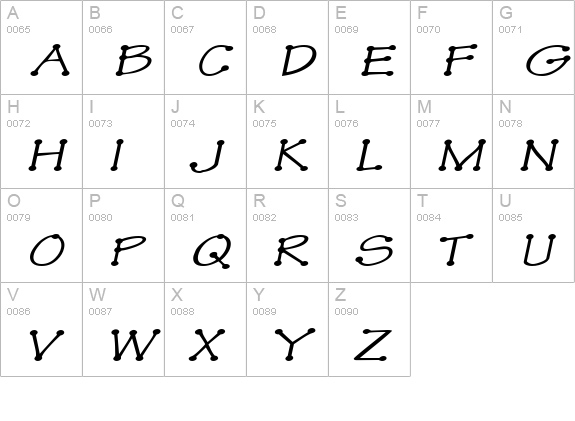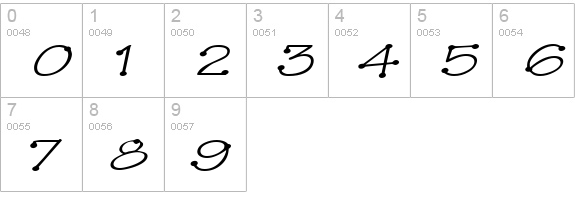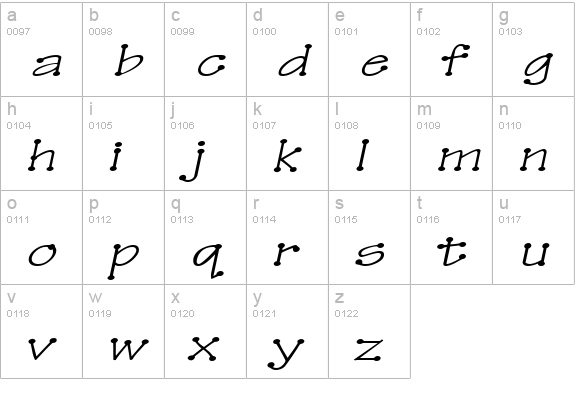
TinkerToyExtended Oblique Font Details
TinkerToyExtended Oblique is a distinctive, italic variant in the TinkerToyExtended typeface family \xE2\x80\x94 well suited to design and typography projects.
TinkerToyExtended Oblique is a captivating font that effortlessly combines playfulness with elegance. This unique typeface is perfect for adding a touch of whimsy to any design project. With its elongated and slightly slanted letterforms, TinkerToyExtended Oblique exudes a sense of movement and creativity. Created with meticulous attention to detail, this font is a true masterpiece. Each letter is carefully crafted to create a harmonious balance between curves and angles. The result is a font that is both visually striking and incredibly versatile. TinkerToyExtended Oblique is freely available to download at FontsMarket.com. Whether you're a professional designer or a hobbyist, this font is a must-have in your collection. Its versatility allows it to be used in a variety of design projects, from logos and branding to invitations and posters. The playful nature of TinkerToyExtended Oblique is sure to catch the eye and captivate the imagination of anyone who sees it. Its unique style adds a touch of charm and personality to any design, making it the perfect choice for those looking to make a statement. With its freely available download, TinkerToyExtended Oblique is easily accessible to anyone looking to add a touch of creativity to their designs. Don't miss out on this font that effortlessly combines elegance and playfulness. Download TinkerToyExtended Oblique today at FontsMarket.com and let your imagination run wild.